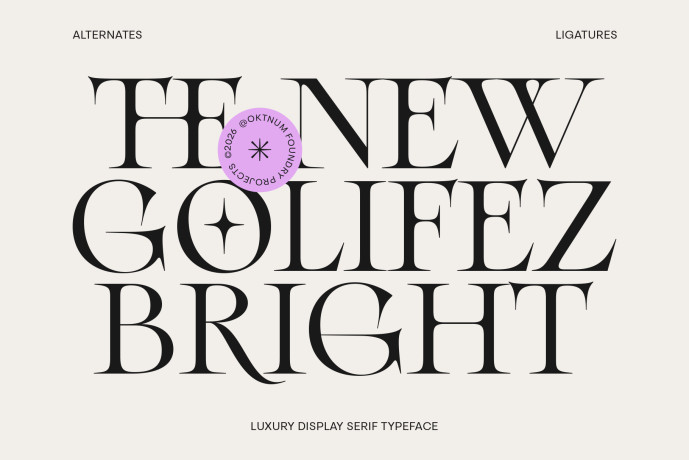
Golifez Bright Serif Font
Golifez Bright Serif is a refined editorial serif designed for modern luxury. Balancing dramatic contrast with graceful proportions, it captures the elegance of classic typography while embracing a fresh contemporary voice. Serif, Ligatures, Alternates, Classy, Elegance, Luxury, Branding, by Oktnum Type Foundry. https://oktnum.gumroad.com/